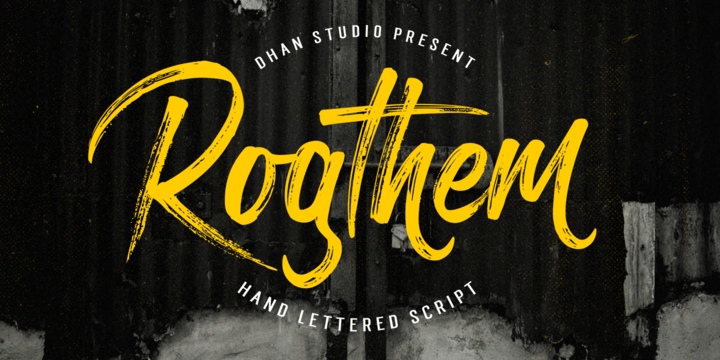
Rogthem Font
This rugged typeface is perfect for adventure brands, outdoor equipment, wilderness expeditions, survival gear, mountain climbing, camping products, hiking trails, extreme sports, and tough lifestyle design applications.
What makes this font exciting is its wilderness strength combined with adventure authenticity, offering designers a hardy typeface that captures the essence of untamed nature while delivering survival-tested durability and mountain-peak visual excellence.
The Rogthem font family includes light, regular, medium, bold, heavy, and wilderness variations, providing complete adventure design solutions for creating rugged outdoor visual identities.
Rogthem Font features carefully crafted outdoor styling with authentic wilderness character that conveys genuine adventure expertise. Each character has been designed with rugged proportions and natural elements that enhance the hardy aesthetic. The font's outdoor qualities make it particularly effective for adventure brands and wilderness applications.
Professional designers choose Rogthem Font for projects requiring authentic outdoor credibility and wilderness atmosphere. Its adventure heritage makes it exceptionally well-suited for outdoor gear companies, adventure tour operators, and rugged lifestyle brands. The font's versatile outdoor variations allow designers to control the wilderness intensity, from subtle adventure elegance to full mountain celebration.
The complete Rogthem Font package offers extensive outdoor ornaments and wilderness decorative elements that enhance the rugged aesthetic. Advanced adventure features allow designers to create complex outdoor effects with multiple nature-inspired options. This comprehensive wilderness toolkit ensures designers have everything needed to create authentic outdoor communications that celebrate the enduring spirit of wilderness exploration and adventure excellence.